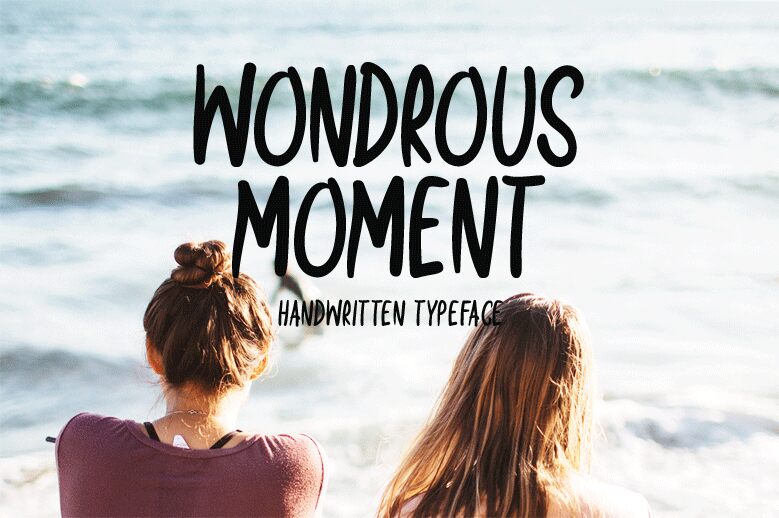
Wondrous Moment
Wondrous Moment, designed by Md Shohail Bhuian, is a charming handwritten font that exudes elegance and grace. With its semi-light weight and condensed width, this font captivates attention while maintaining a delicate balance.
Perfect for wedding invitations, love letters, or romantic novels, it adds a touch of sophistication to any project. Its all-caps feature enhances clarity and legibility without compromising its artistic flair.
Let Wondrous Moment elevate your designs with its unique blend of beauty and refinement.